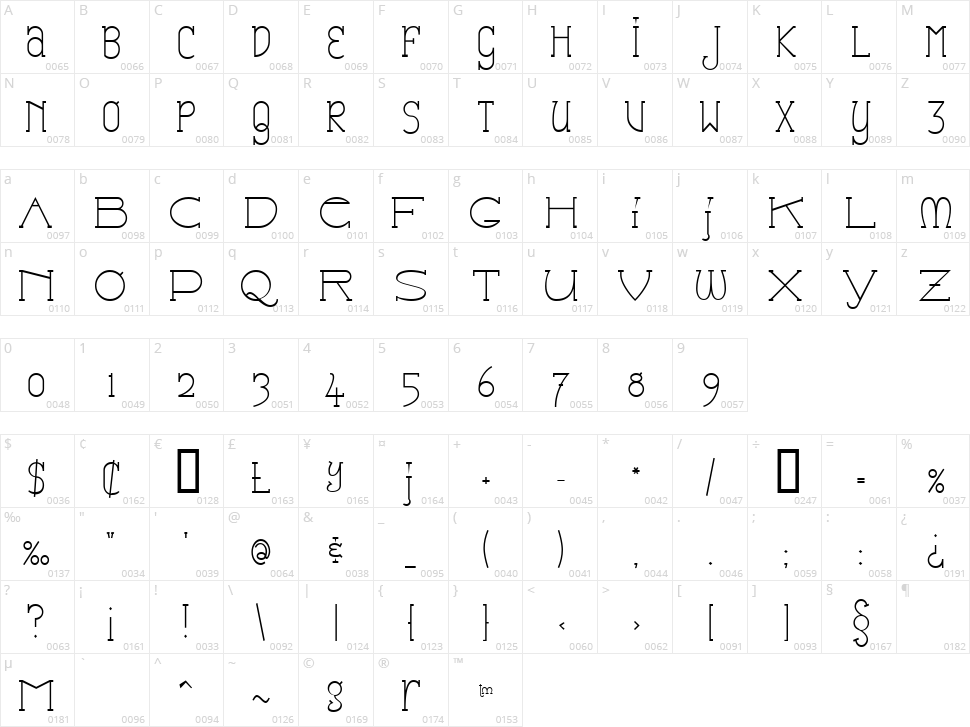
Catharsis Espresso
A TrueType font created by Christian Thalmann (cinga at gmx dot
This font is aimed at coffee bars and the likes, hence the name. It
offers a range of ligatures; use a keyboard tool to find them all.
Unlike its sister font Catharsis Macchiato, it contains no lowercase
characters, but instead offers most characters in narrow and extrawide
versions, as well as a few alternative shapes.